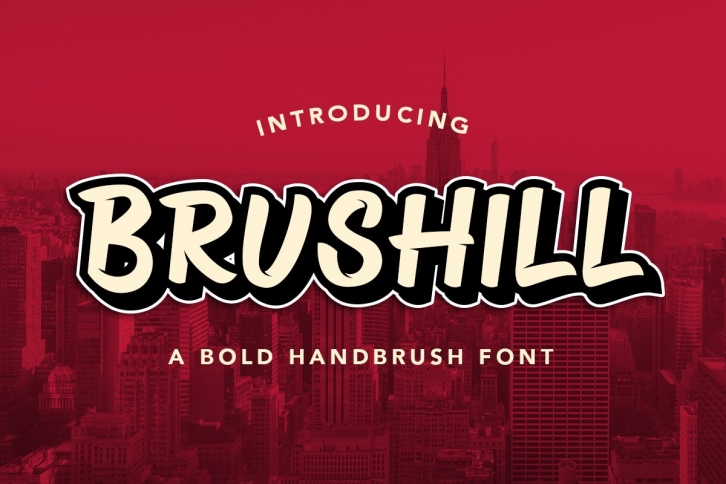
BRUSHILL FONT Download
BRUSHILL is a bold handbrush font with a modern look and energetic. BRUSHILL is ready and Perfectly fit for your logo designs, music projects & social media posts, event poster, brand imagery, product packaging, quotes, merchandise, etc. More importantly, please don't hesitate to drop me a message if you have any issues or queries.